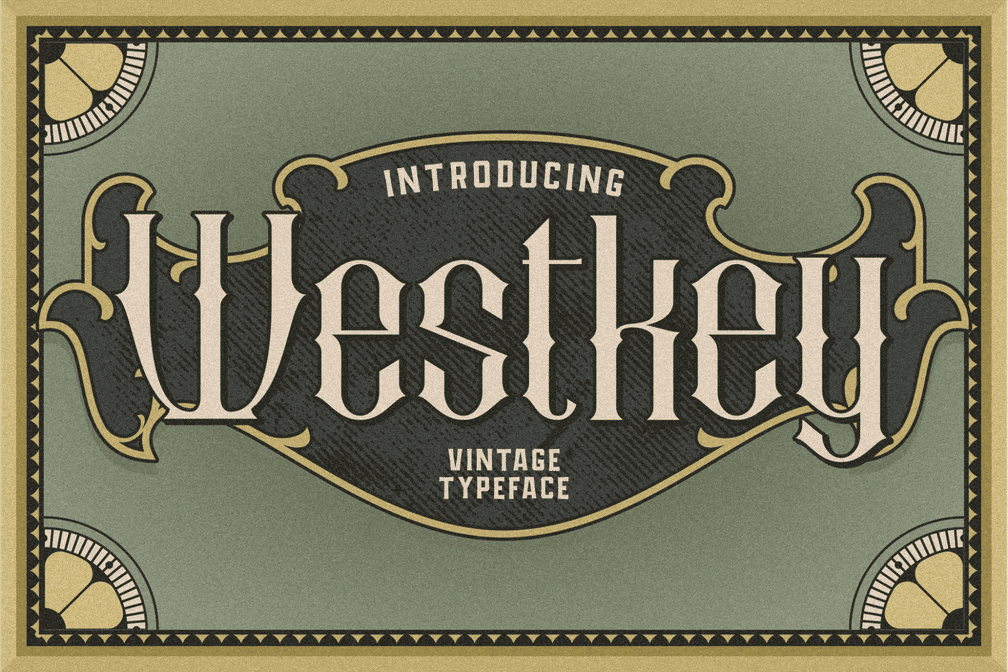
Westkey Victorian Font
Inspired by old books with luxurious and dark characteristics at that time, it has an old impression but relates to all times. Suitable for designs that require a mature and old touch such as logos, posters, design labels and more.